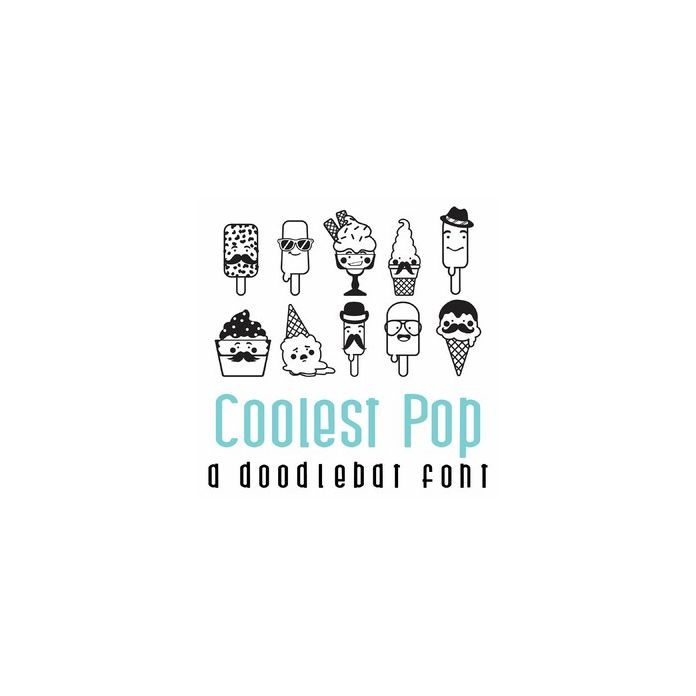
This doodlebat font features 26 popsicle and ice cream treats perfect for Dad. Use this doodlebat to create fun gifts, cards, crafts, decor, party decor, planner stickers, scrap book pages and more!